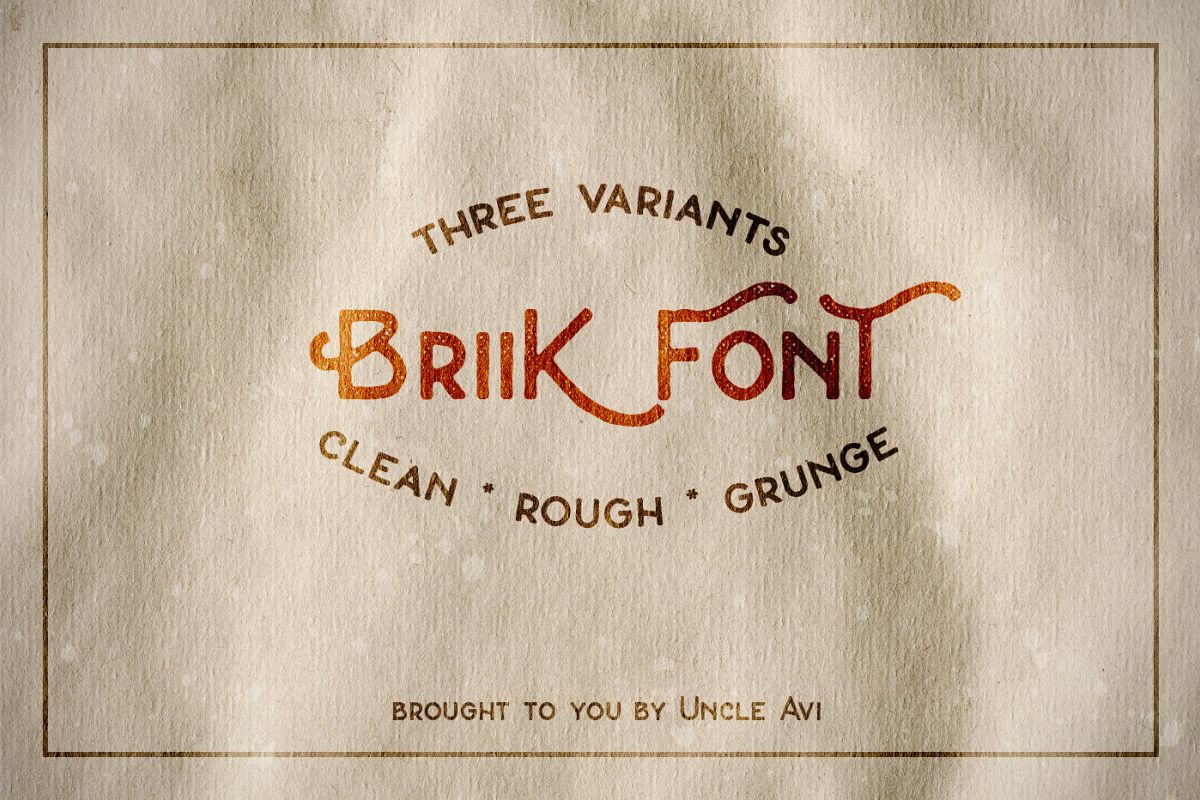
Briik - Hipster Fonts
Briik is not too formal and also not too crazy font. It's perfect for logotypes & typography works. It also pairs nicely with script and heavy sans serif fonts. It is a mono-weight typeface that includes 3 variants: clean, rough and vintage.
Each letter has 3 Variants also: small caps, normal caps and alternative normal caps. Additionaly to this there are also 19 ligatures.